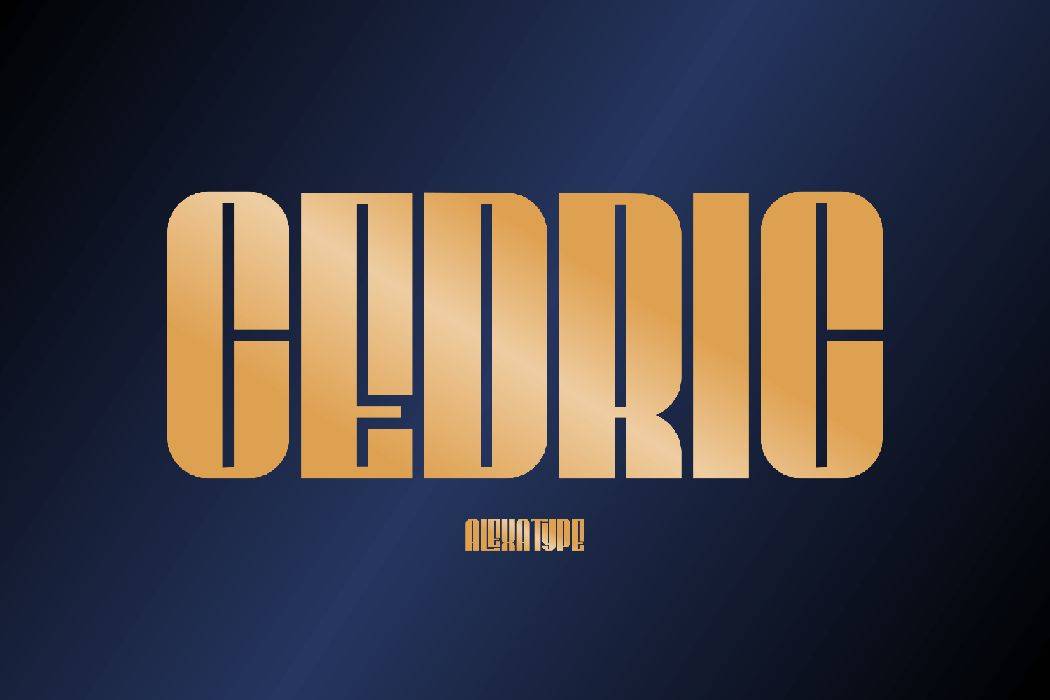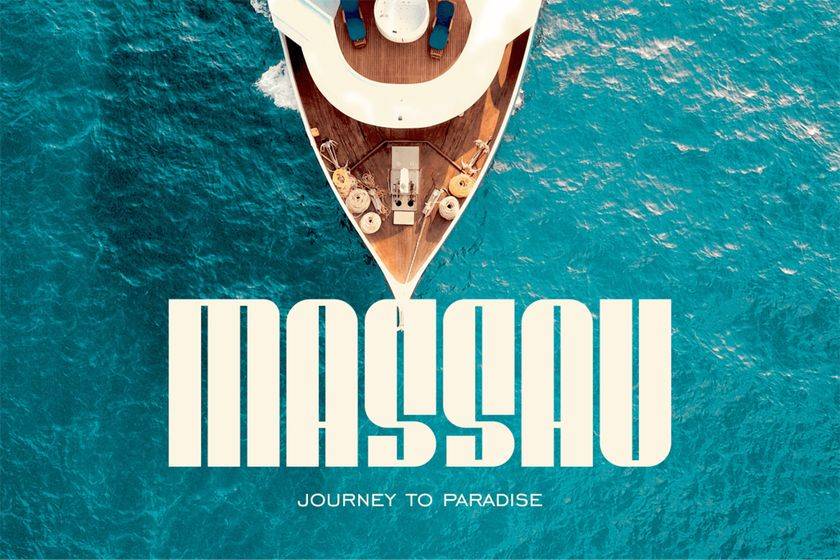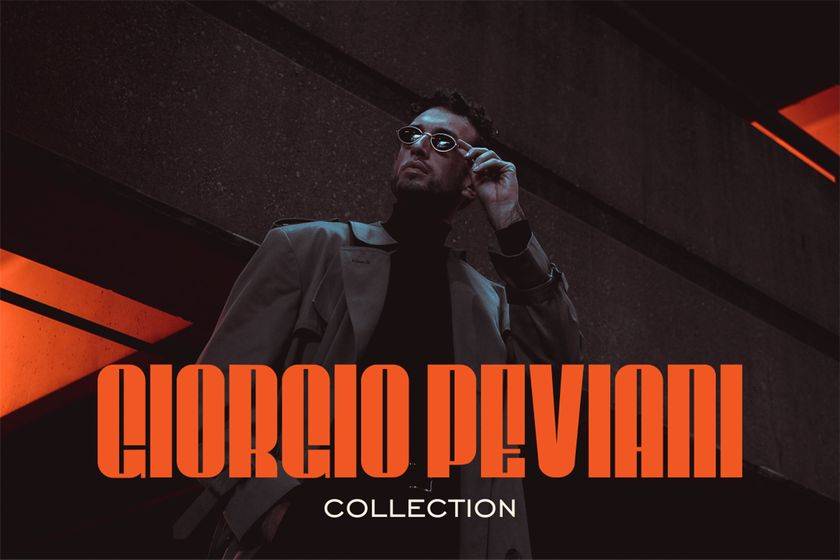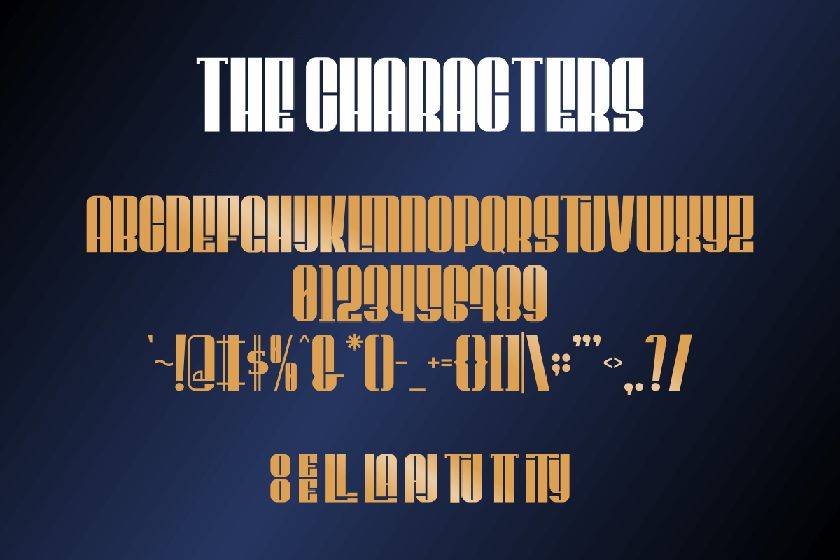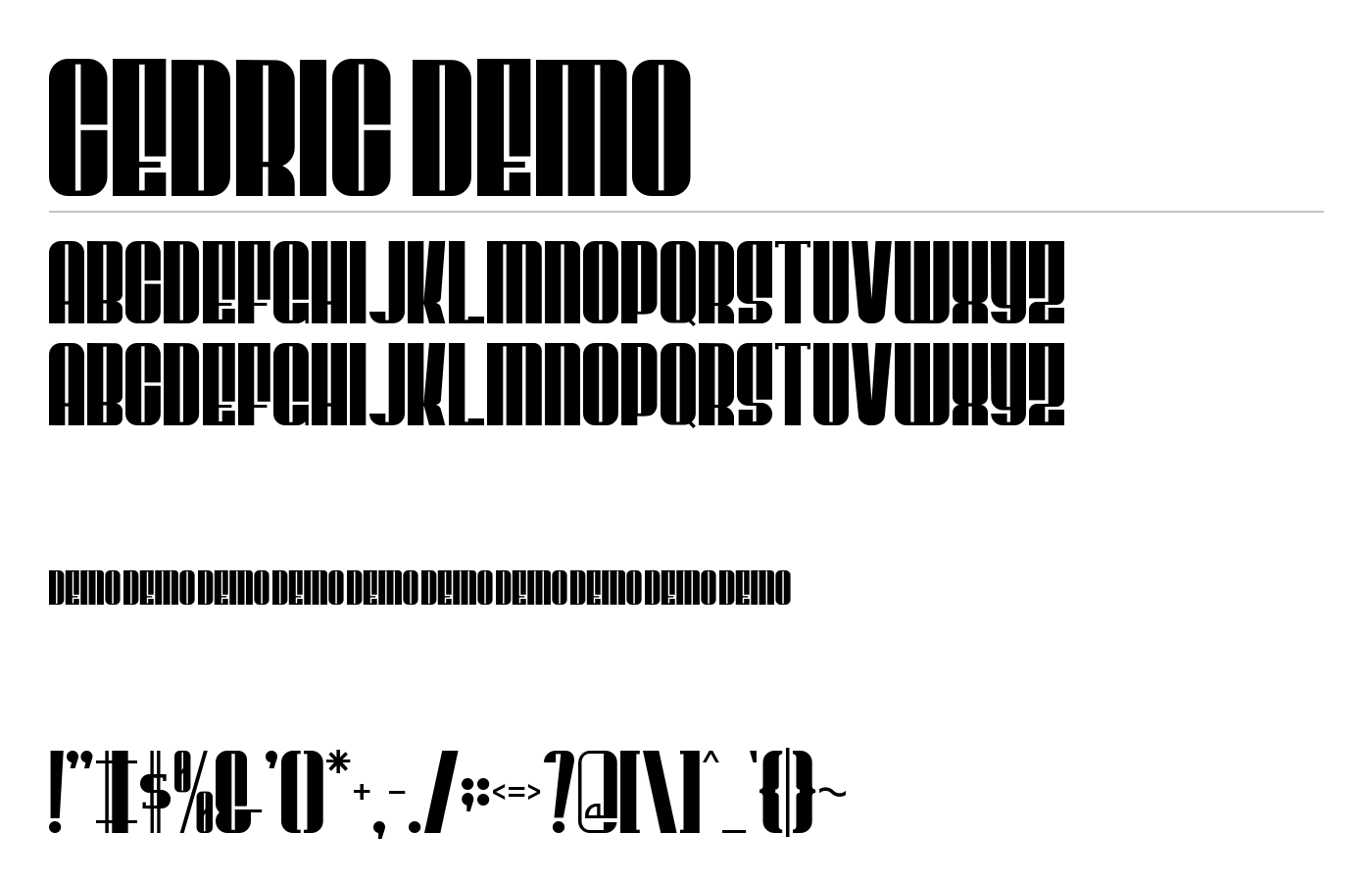
Cedric is a bold, condensed sans serif font with a strong vertical emphasis and tight spacing, giving it a striking and modern appearance. Its tall, narrow letterforms with low contrast and geometric strokes evoke a dramatic, authoritative feel, making it ideal for impactful headlines, posters, and branding that demand attention. This font works best in display contexts where a bold, stylish statement is needed.
Cedric Font
About Cedric Font
| Font family | Cedric Font |
| Designer | Sahirul Iman, Semarang, alexatype |